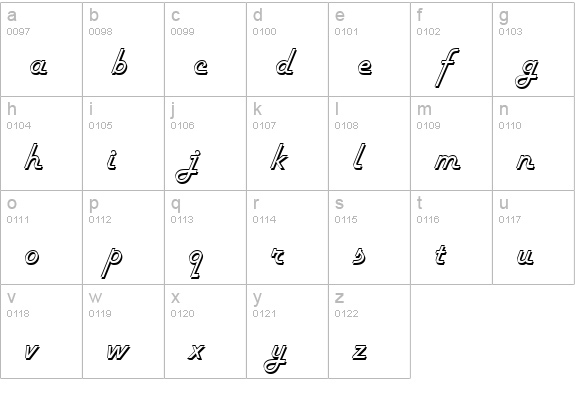
Introducing Harlow ICG font, a visually stunning typeface that effortlessly combines elegance with modernity. With its clean lines and sophisticated curves, Harlow ICG is perfect for a wide range of design projects, from branding and logos to invitations and headlines. What sets Harlow ICG apart is not just its exquisite design, but also its accessibility. This font is available for free, allowing designers and enthusiasts alike to create stunning visuals without any cost. Simply head over to FontsMarket.com and download this remarkable typeface, making it the perfect addition to your font library. Harlow ICG boasts a versatile range of weights and styles, ensuring that it can adapt to any design concept or aesthetic. From the sleek and minimalistic Light weight to the bold and impactful Black weight, this font offers endless possibilities to bring your creative visions to life. Whether you're aiming for a professional and refined look or a more playful and whimsical atmosphere, Harlow ICG has got you covered. Its timeless appeal and contemporary flair make it suitable for a variety of projects, whether it be corporate branding, editorial layouts, or even personal stationery. With its legibility and attention to detail, Harlow ICG ensures that your message will be conveyed with clarity and style. Each character is meticulously crafted to create a seamless and harmonious visual experience, guaranteeing that your designs will always leave a lasting impression. Experience the beauty and versatility of Harlow ICG for yourself. Visit FontsMarket.com today and enjoy the freedom of downloading this exceptional font, completely free of charge. Elevate your design projects to new heights with Harlow ICG, the font that effortlessly combines sophistication and accessibility.